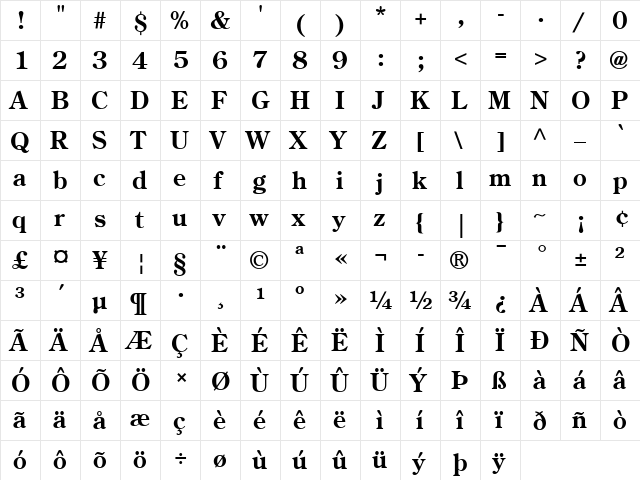
CenturyOldStyle LT Bold Font Preview
CenturyOldStyle LT Bold
Design Context for CenturyOldStyle LT Typeface
CenturyOldStyle LT brings classic typographic sensibility to the table — its serifs and measured letterforms reflect centuries of print heritage. The heavy weight commands attention and anchors typographic hierarchies.
Pro Tip: Set CenturyOldStyle LT at slightly larger body copy sizes than you would a regular-weight serif to compensate for its delicate stroke contrast.